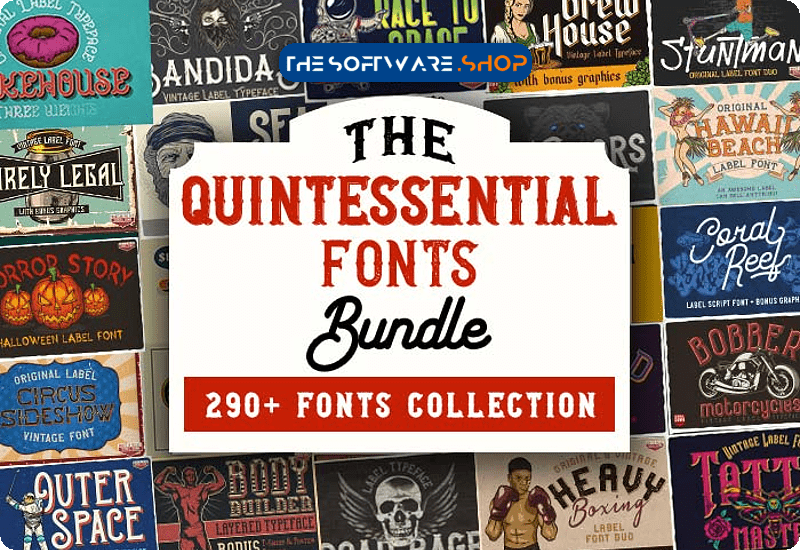
The Quintessential Fonts Bundle includes over 290 handpicked fonts from 48 font families By Vozzy Vintage Fonts that are perfect for a variety of projects, including logos, invitations, advertisements, posters, labels, and more. Whether you’re looking to create a brand logo, design a tattoo, or develop a fashion line, this bundle has everything you need to bring your ideas to life.